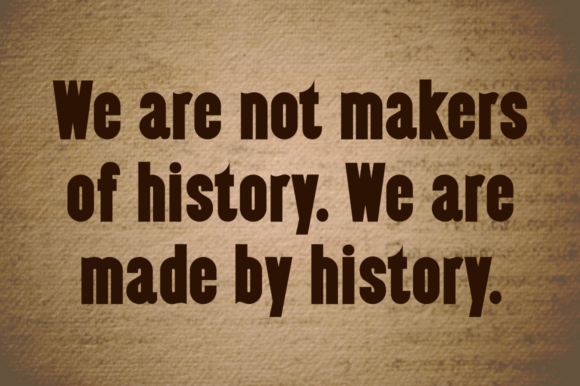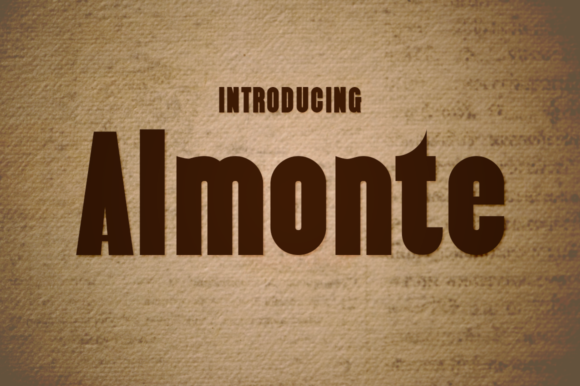
Almonte
About Almonte Font
Almonte is a gorgeous display font that looks great in print and digital projects; this vintage inspired sans serif is a free font from Typodermic.